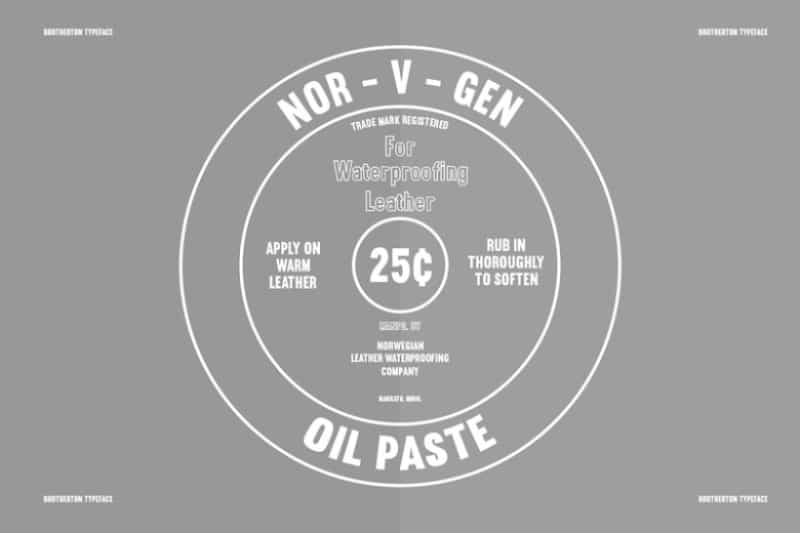
Brotherton is a display font and it could be used in movie posters or simply headlines to attract the attention of the reader. Due to these attributes that include the beautiful and stylish look and the contemporary appeal,